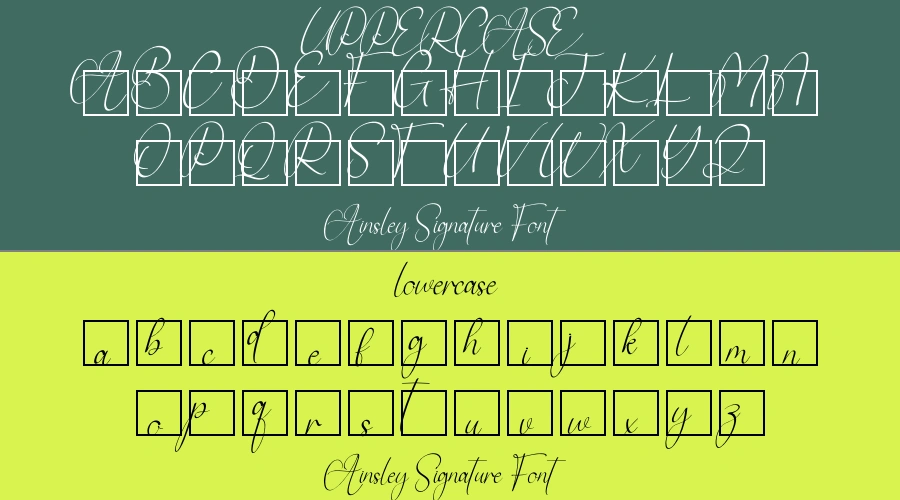
About Ainsley Signature Font
Ainsley Signature Font stands out for its distinctive combination of consistent rhythm and operational efficiency. Ideal for product naming, it provides the durability and sophistication that professional projects demand. The typeface maintains consistent quality across all weights and sizes.
Key features include refined elegant proportions and practical tabular figures, enhancing typographic expression. In digital platforms applications, Ainsley Signature Font demonstrates exceptional language switching. The stem weight and technical authority contribute to its distinctive character and professional appeal.